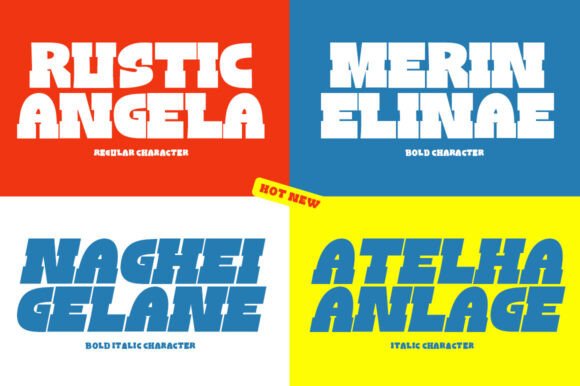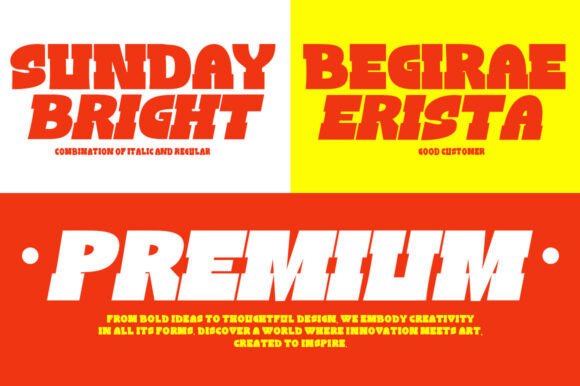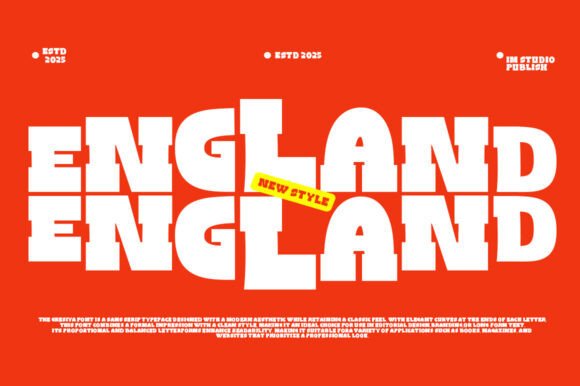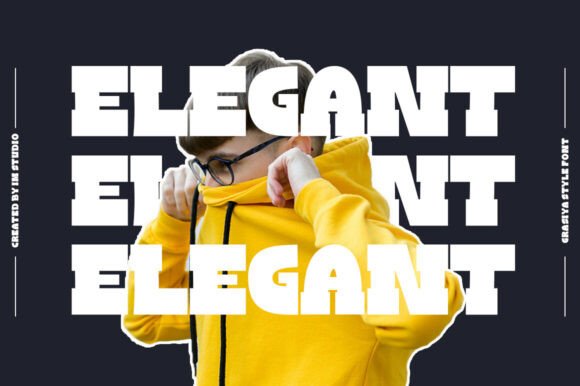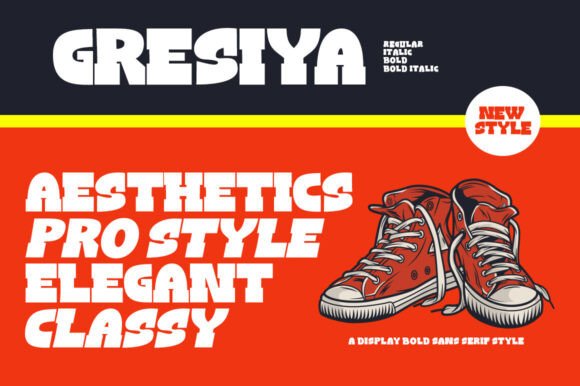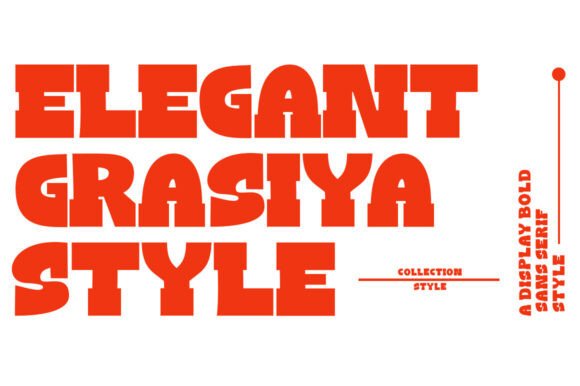
Introduction to Gresiya 4 Style Font
Immerse yourself in the captivating elegance of Gresiya, a typeface that effortlessly harmonizes timeless allure with a taste of modern sophistication.
Gresiyaโ€™s artful curves and expertly refined letterforms dance in harmonious sequence, beguiling the observer with its enchantment Infused with a selection of meticulously crafted ligatures and alternate characters, Gresiya blossoms with an unrivaled versatility, sparking boundless creative opportunities.
Key Features of Gresiya 4 Style Font